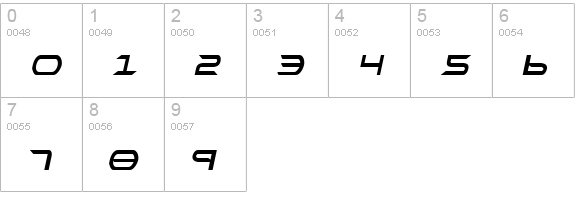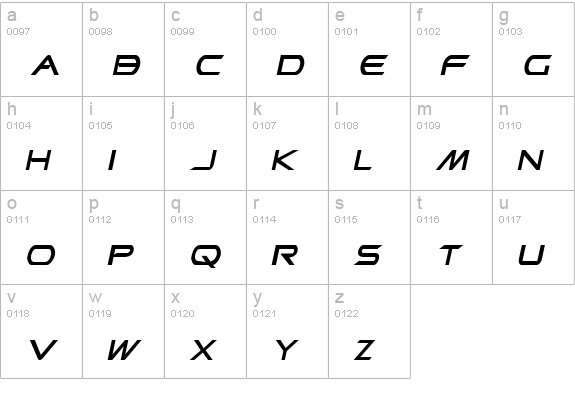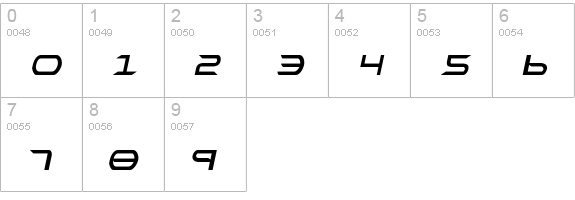
Promethean Italic is a distinctive, italic variant in the Promethean typeface family \xE2\x80\x94 well suited to design and typography projects.
Promethean Italic font exudes elegance and sophistication with its sleek, modern design and graceful curves. Perfect for adding a touch of refinement to your projects, this font strikes the perfect balance between classic and contemporary styles. Its italicized form adds a dynamic flair, making it ideal for headers, titles, and other eye-catching text elements. The best part? Promethean Italic font is completely free to download at FontsMarket.com. Whether you're working on a professional presentation, a creative project, or simply looking to elevate your designs, this font is a versatile choice that will enhance any piece of work. Embrace the beauty and versatility of Promethean Italic font today and watch your designs come to life with a touch of class and sophistication.